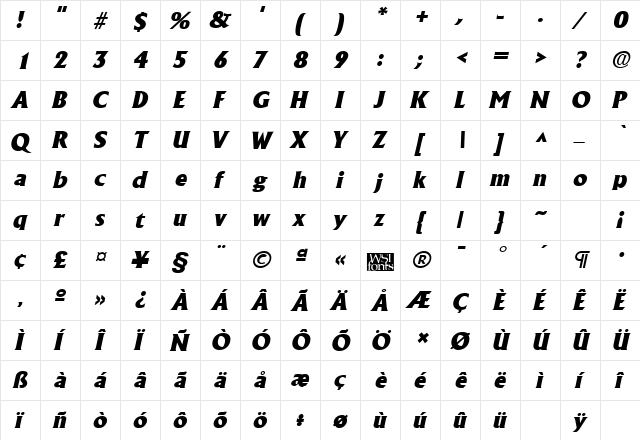
AlbertaHeavy Italic Font Preview
AlbertaHeavy Italic
AlbertaHeavy Italic Font Details
Design Context for AlbertaHeavy Typeface
AlbertaHeavy offers clean, dependable letterforms without strong stylistic allegiance, making it a practical choice for designers who need flexibility. The slanted form adds forward momentum and visual energy.